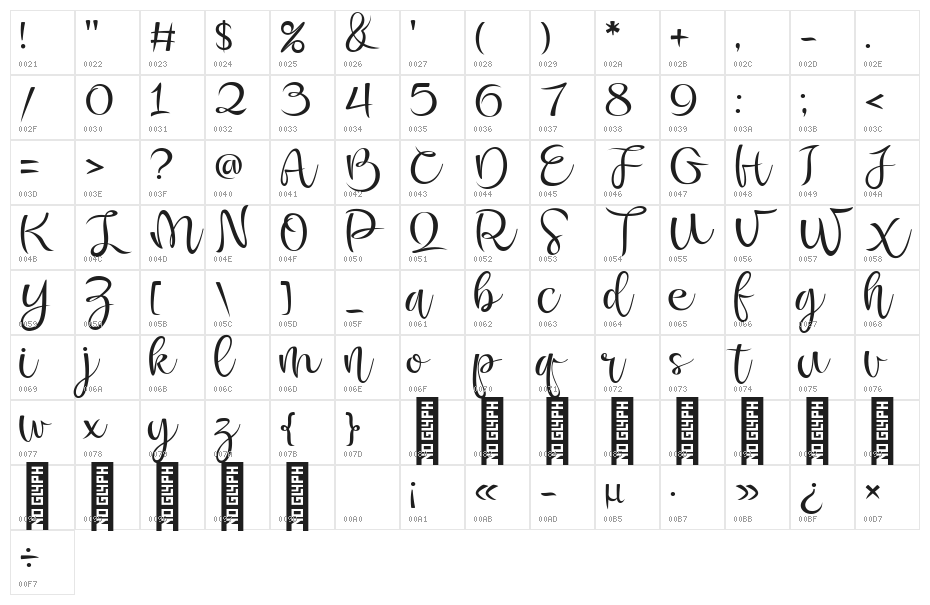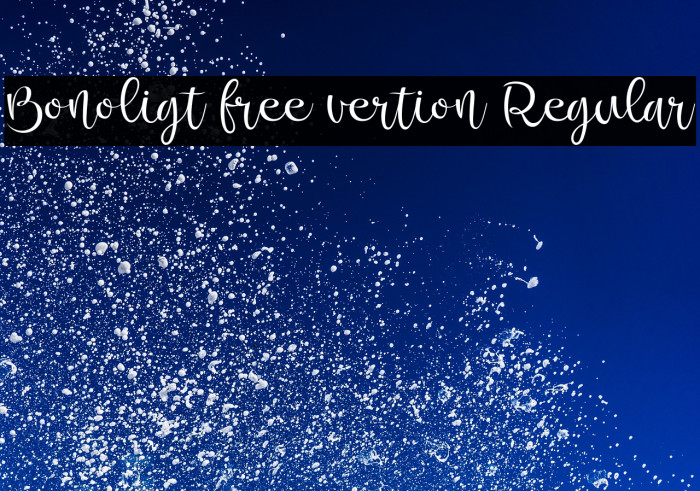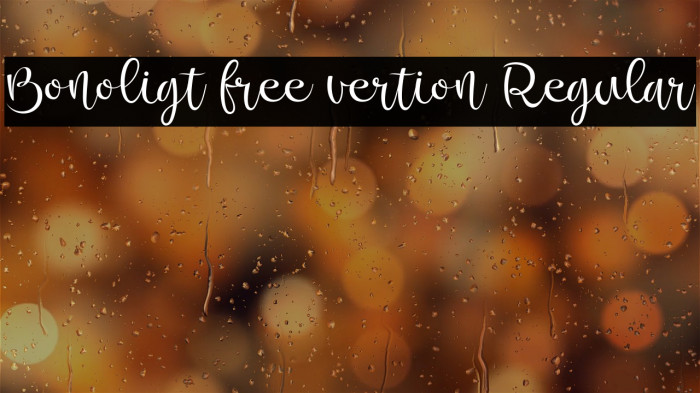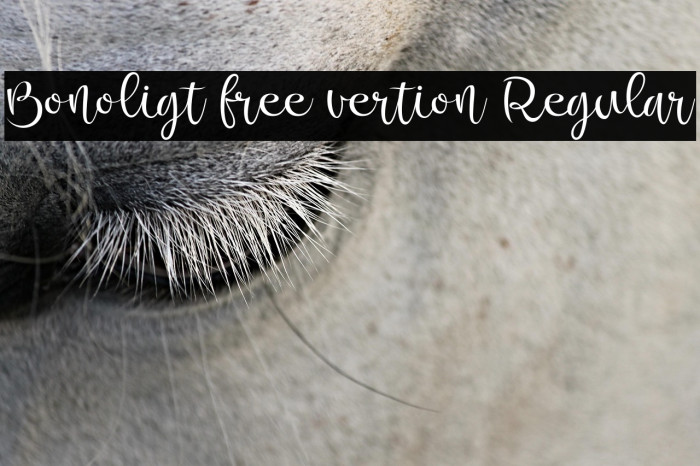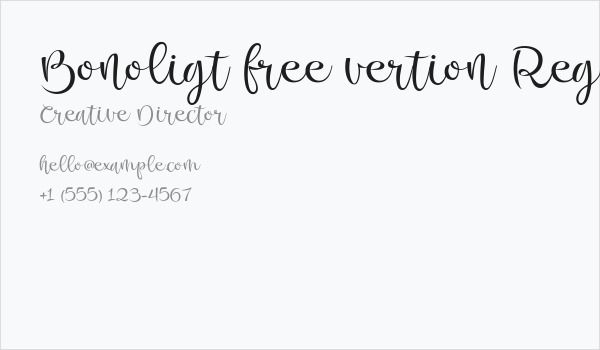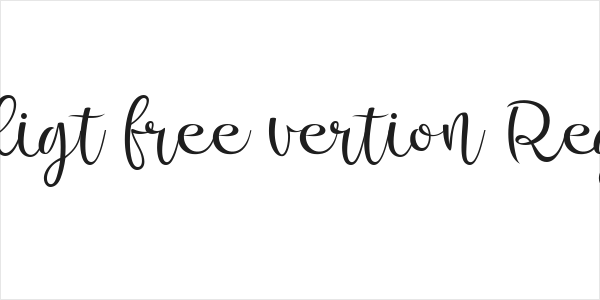
Bonoligt free vertion Regular Font
Bonoligt free vertion Regular Description
This font features a lively and flowing script style, characterized by its elegant curves and smooth transitions between letters. The uppercase letters exhibit a playful yet sophisticated flair, with loops and swirls that add a sense of movement. The lowercase letters maintain a consistent style, offering a harmonious blend of readability and artistic expression. Numbers and special characters are crafted with the same attention to detail, ensuring a cohesive look across all elements. This font is perfect for projects that require a touch of elegance and creativity.